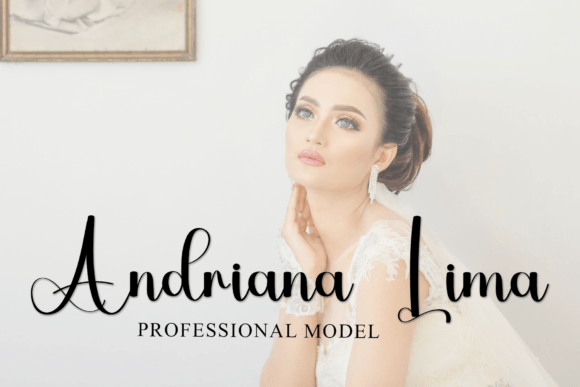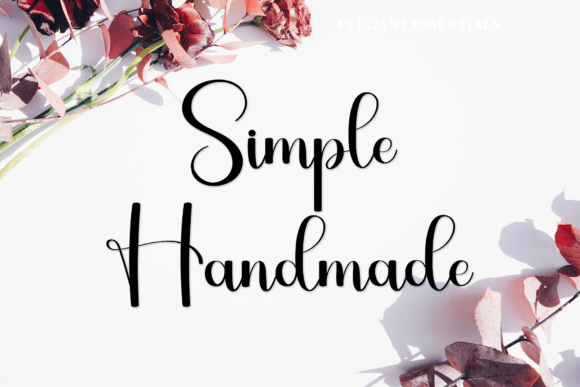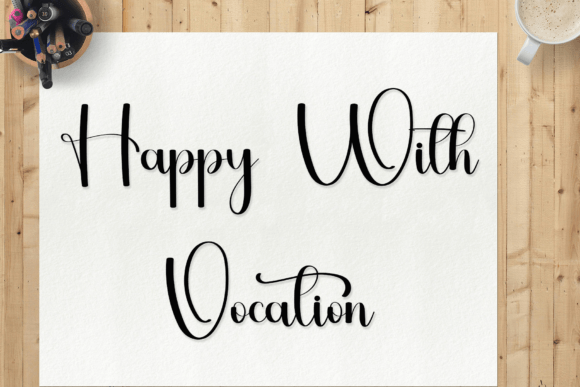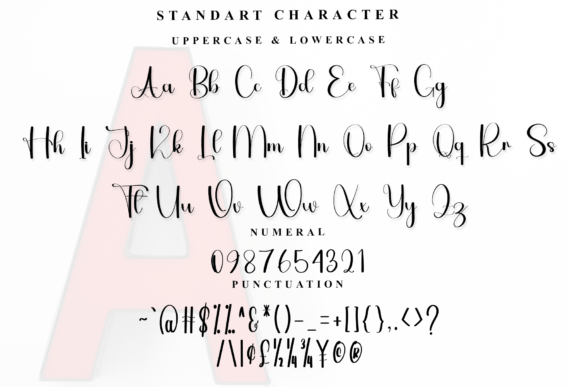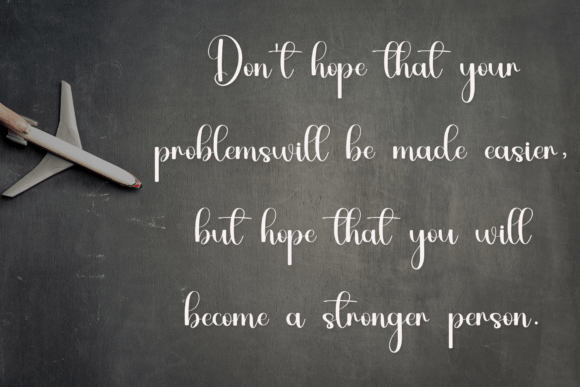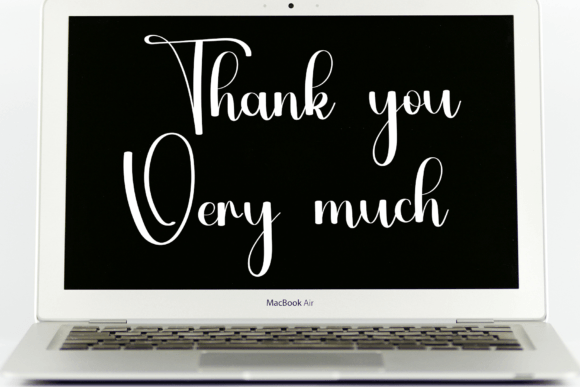
Introducing Antum Font: Elevate Your Designs with Elegance and Flair
In the world of typography, a font can make or break a design. It’s the perfect blend of style, elegance, and personality that brings a creative vision to life. If you’re a designer, crafter, or simply someone who appreciates the art of beautiful typography, you’re in for a treat. Say hello to Antum Font, a delicate, elegant, and flowing handwritten font that’s about to take your designs to the next level.
The Beauty of Antum Font
Antum Font is a masterpiece of typographic design, boasting beautiful and well-balanced characters that exude elegance and sophistication. Its delicate strokes and flowing lines make it a versatile font that can match a wide pool of designs, from modern and minimalist to vintage and ornate. Whether you’re working on a branding project, a craft design, or simply want to add a touch of personality to your digital creations, Antum Font is the perfect choice.
What Makes Antum Font Special?
So, what sets Antum Font apart from other fonts out there? For starters, it’s PUA (Private Use Area) coded, which means you can access all the amazing glyphs and ligatures easily. This feature makes it incredibly easy to use and customize, even for those who aren’t typography experts. With Antum Font, you can add a touch of elegance and whimsy to your designs without spending hours trying to figure out complicated font codes.
One of the most exciting things about Antum Font is the endless creative possibilities it offers. Imagine being able to add a touch of sophistication and elegance to your craft designs, social media graphics, or even your website’s header. With Antum Font, you can create stunning visual content that captures the attention of your audience and leaves a lasting impression.
Antum Font is a dream come true for designers and crafters who want to elevate their creations with beautiful typography. Whether you’re a professional designer or a hobbyist, this font is perfect for anyone who wants to add a touch of elegance and personality to their work. From crafting beautiful wedding invitations to designing stunning social media graphics, Antum Font is the perfect tool to help you bring your creative vision to life.
Key Features of Antum Font
• Delicate, elegant, and flowing handwritten font
• Beautiful and well-balanced characters
• PUA coded for easy access to glyphs and ligatures
• Versatile and matches a wide pool of designs
• Perfect for designers, crafters, and anyone who appreciates beautiful typography
Get Ready to Bring Your Designs to Life
In conclusion, Antum Font is a beautiful and elegant handwritten font that’s perfect for designers, crafters, and anyone who appreciates the art of beautiful typography. With its delicate strokes, flowing lines, and PUA coding, this font offers endless creative possibilities for anyone who wants to add a touch of sophistication and elegance to their designs. So if you’re looking for a font that will take your designs to the next level, look no further than Antum Font.